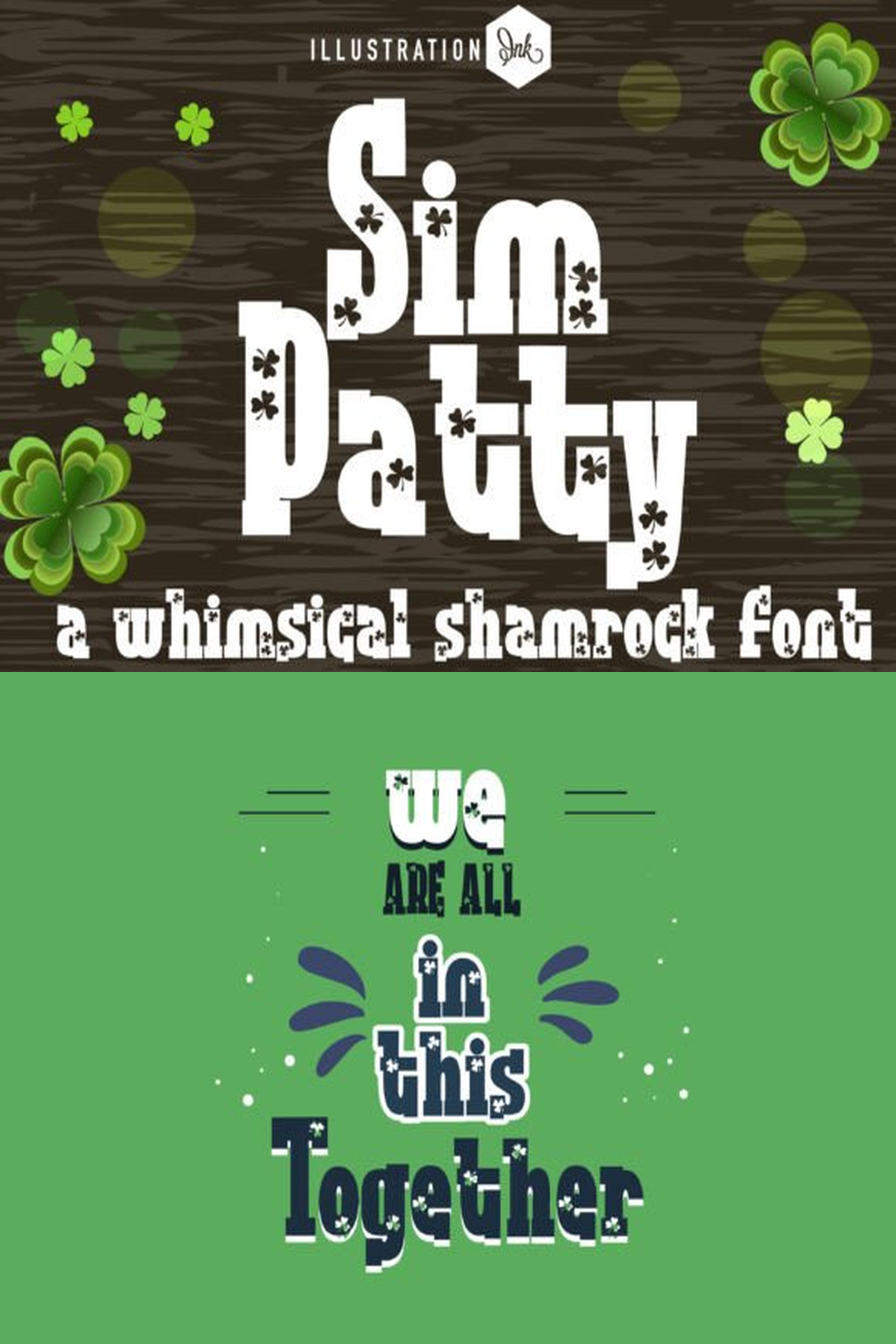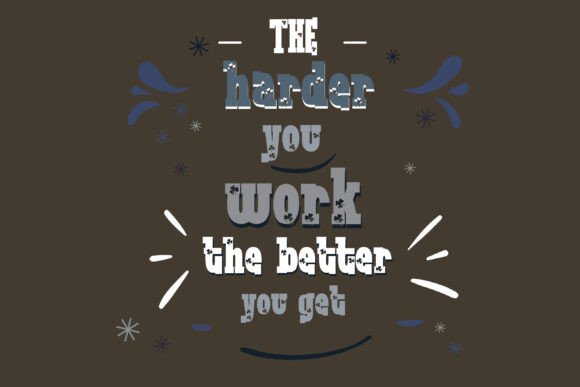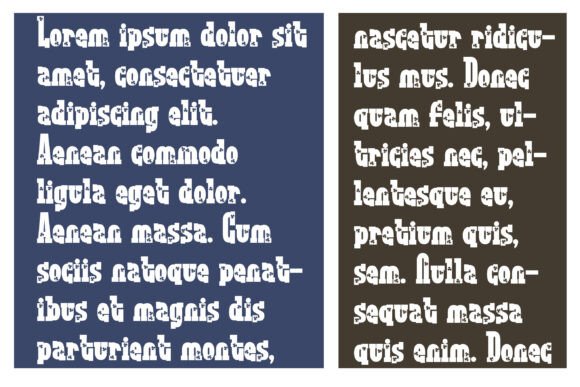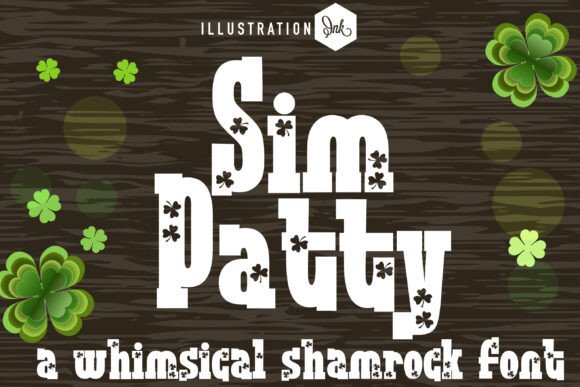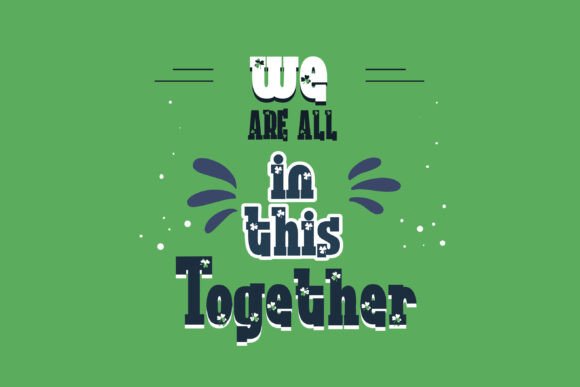
Sim Patty Font: A Lucky & Festive Display Font for St. Patrick’s Day
About the Sim Patty Font
From logos to headlines, the Sim Patty Font is the perfect choice for making a lasting impression. Sim Patty is a festive decorative font, that fits incredibly well to this time of the year. No matter the topic, this font will be an incredible asset to your fonts’ library, as it has the potential to elevate any creation.